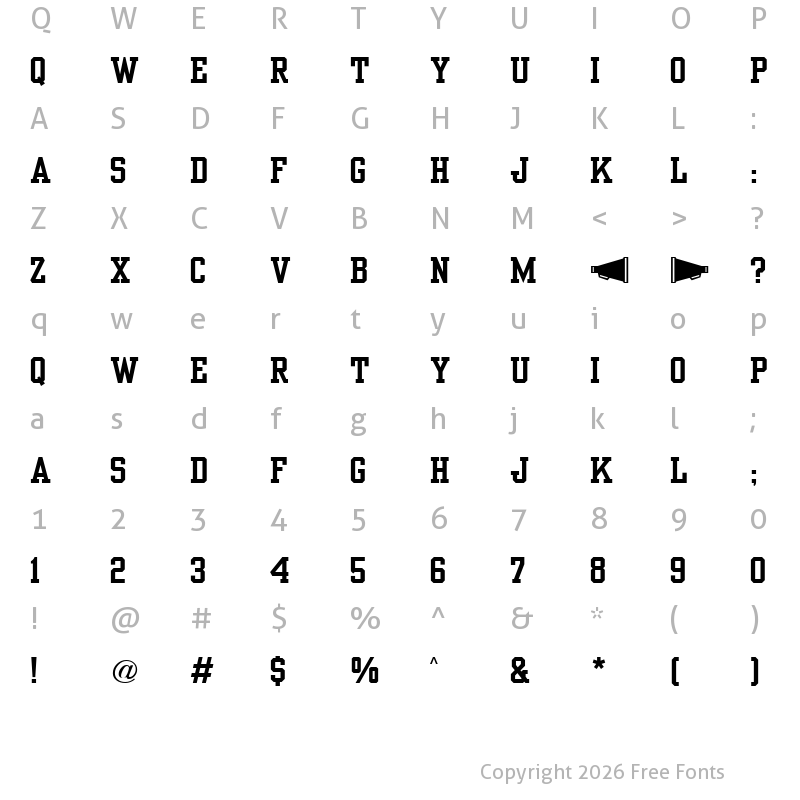
Yearbook Font
Yearbook Font Creatype Studio FontSpace Best Fonts For Yearbook Click to find the best 10 free fonts in the yearbooks style. 1 fonts 2 decorative fonts. Use sans serif fonts to instill a modern. Use serif fonts to create a professional or traditional looking publication. Examples of serif fonts we like include cambria, georgia, or century. To find the best selection of yearbook fonts for your publication, you first. Best Fonts For Yearbook.
Yearbook Font Best Fonts For Yearbook Examples of serif fonts we like include cambria, georgia, or century. This page intentionally left blank. Use serif fonts to create a professional or traditional looking publication. Fonts to give your yearbook its own personality. Flip through its pages to understand. Every font is free to download! Use your yearbook from last year as a guide. 1 fonts 2 decorative. Best Fonts For Yearbook.
Best School Fonts in Canva Blogging Guide Best Fonts For Yearbook Every font is free to download! Use serif fonts to create a professional or traditional looking publication. Click to find the best 10 free fonts in the yearbooks style. Fonts to give your yearbook its own personality. To find the best selection of yearbook fonts for your publication, you first have to identify how many fonts you need. Flip through. Best Fonts For Yearbook.